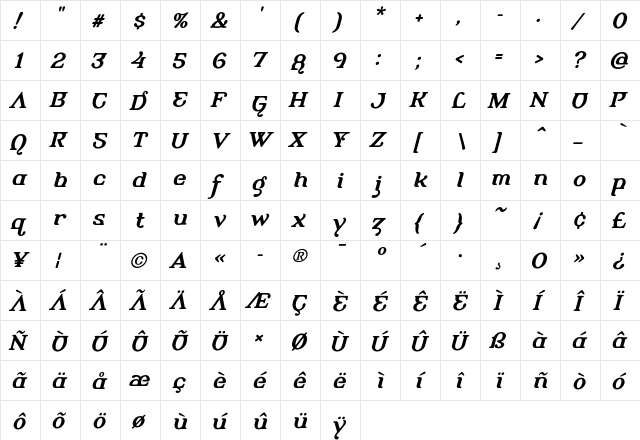
AlembicBeta-BoldItalicTwo Regular Font Preview
Design Context for AlembicBeta-BoldItalicTwo Typeface
AlembicBeta-BoldItalicTwo is a composed and adaptable typeface that performs quietly and consistently across a wide range of design contexts. The dynamic lean of this cut emphasises speed and emphasis in any layout. Its bold stroke weight gives it real presence on the page.
Pro Tip: Try AlembicBeta-BoldItalicTwo for annotation and caption copy alongside an upright companion — the contrast in angle creates a dynamic but ordered typographic system.